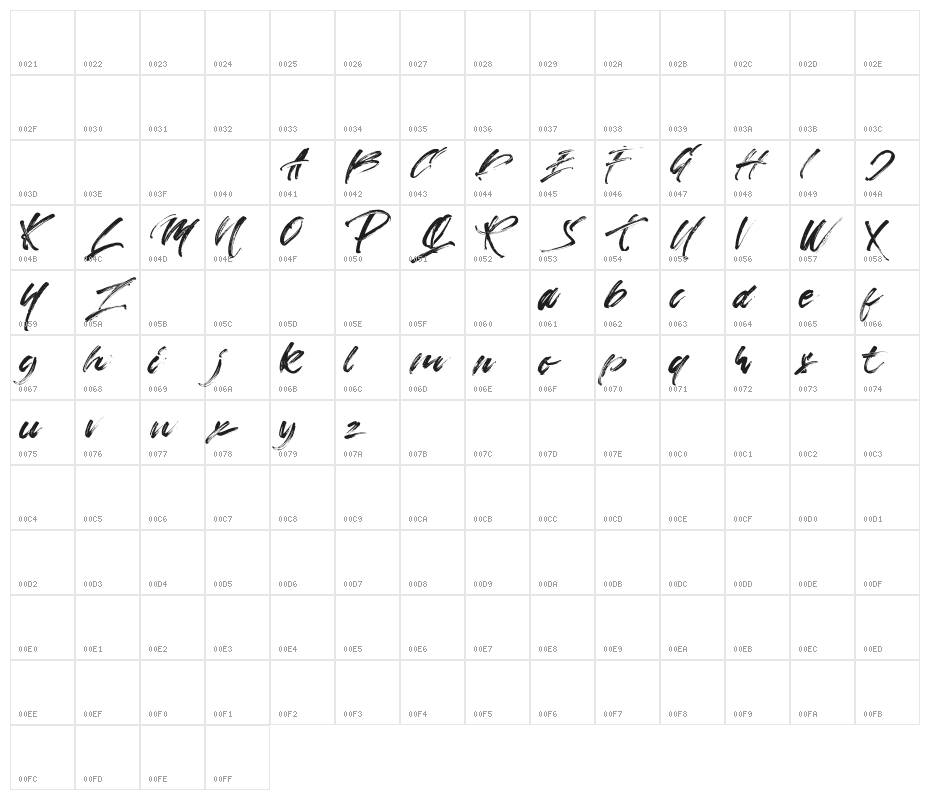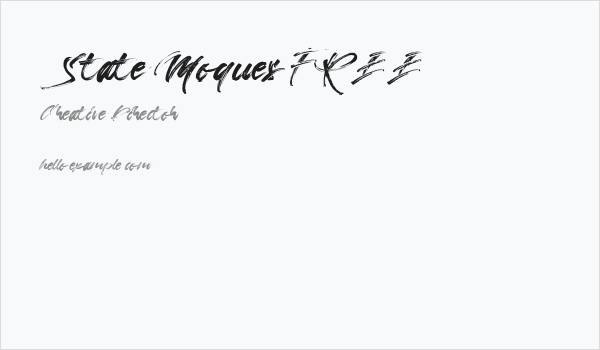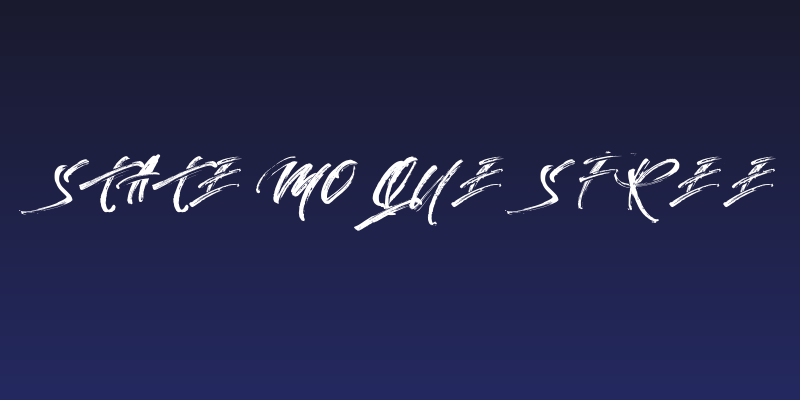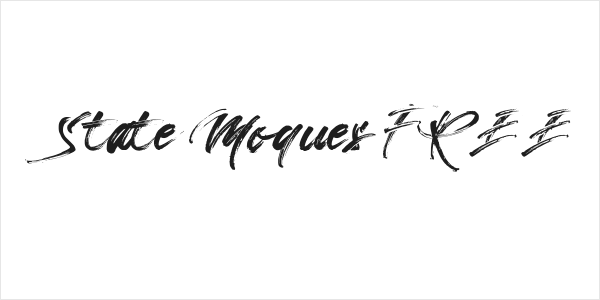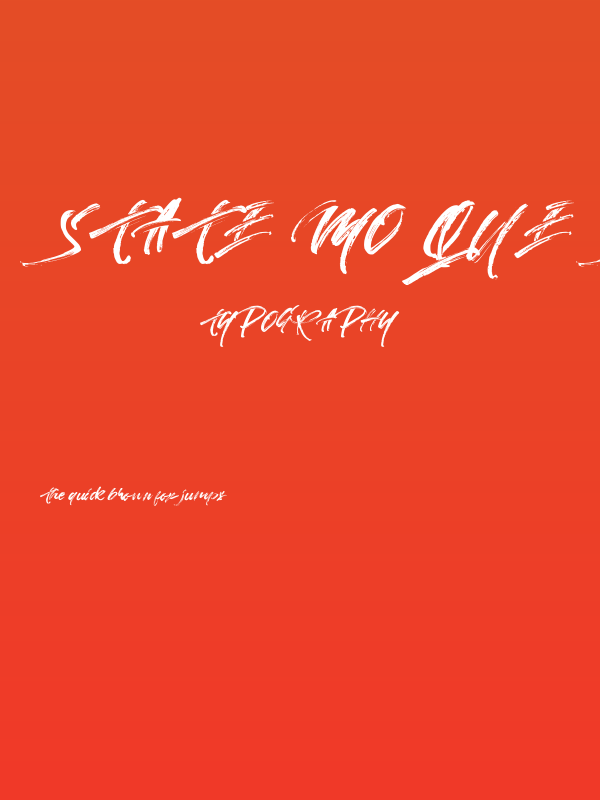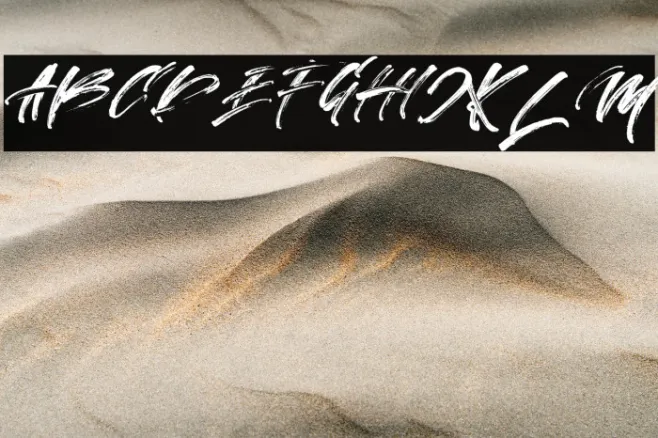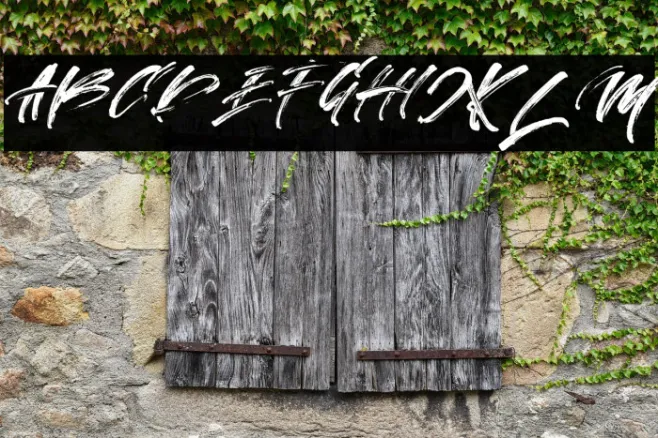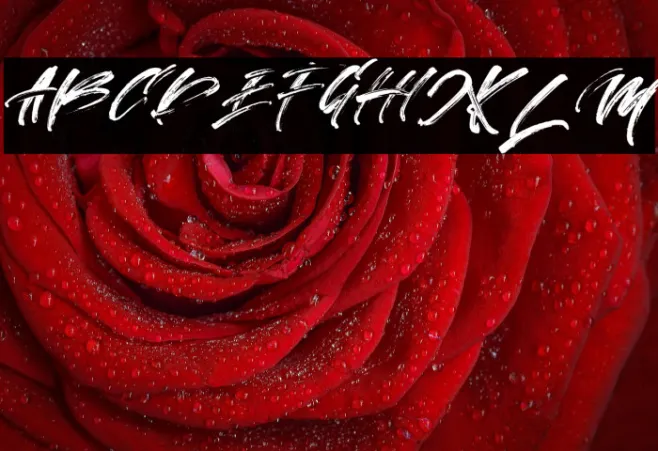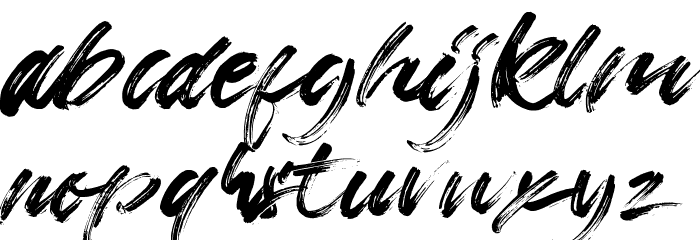
State Moques FREE Font
State Moques FREE Description
This font exhibits a dynamic and expressive brush script style, characterized by its bold, sweeping strokes and energetic flow. The letters are crafted with a sense of movement, giving them a lively and artistic appearance. The uppercase and lowercase letters maintain a consistent style, with varying stroke widths that add to the font's dramatic flair. The characters are slightly slanted, enhancing the handwritten feel, while the rough edges and textured lines contribute to its raw, organic look. This font is ideal for projects that require a personal touch or a creative, artistic vibe.
| Proposed Projects | Ideal for branding, logos, posters, invitations, and any design requiring a personal, artistic touch. |